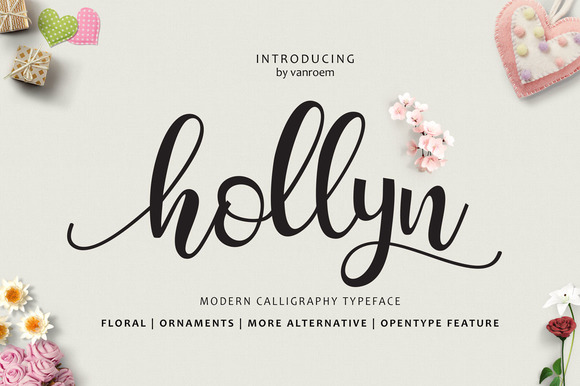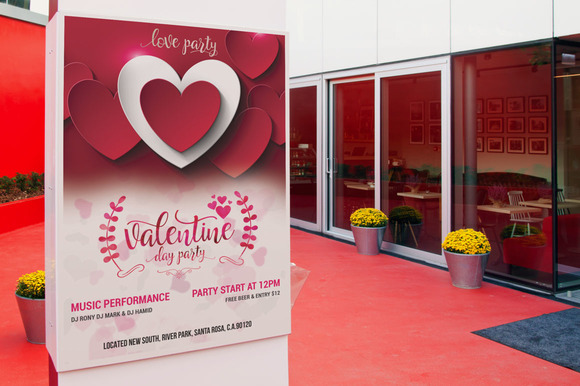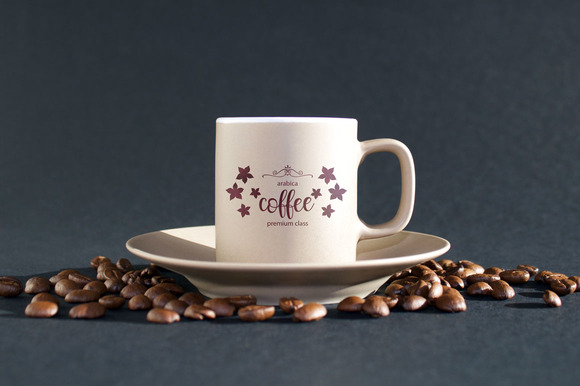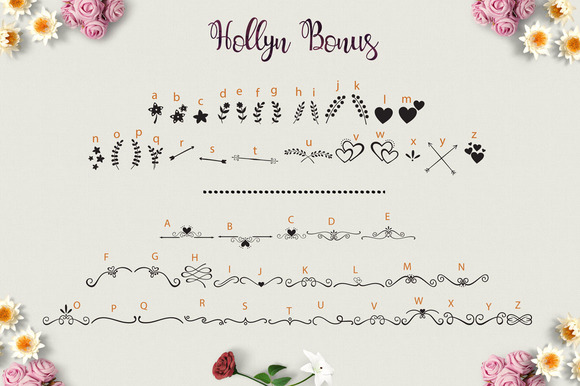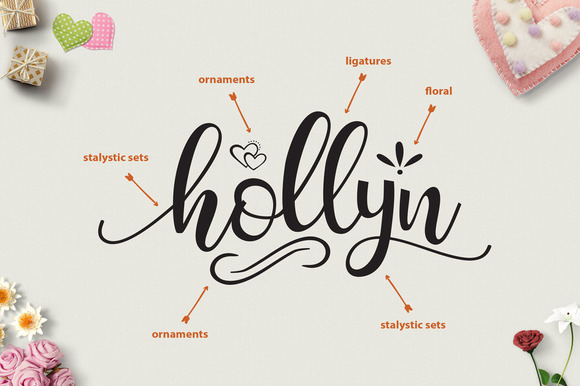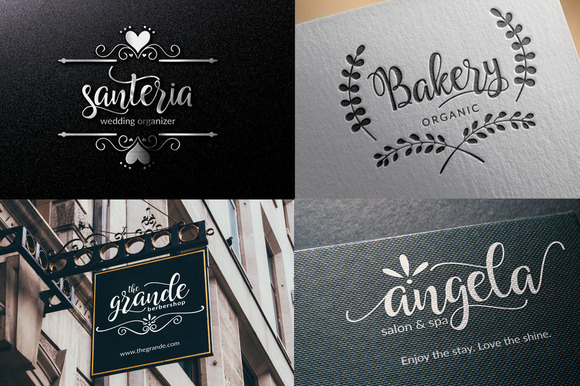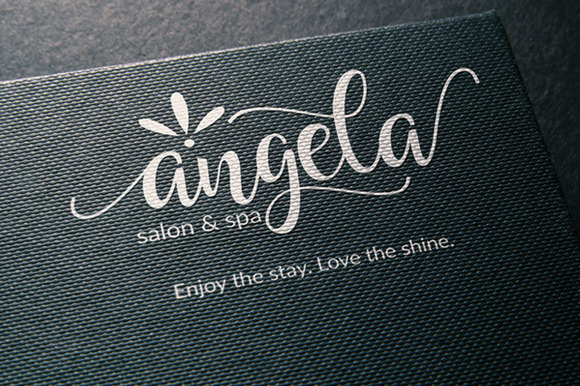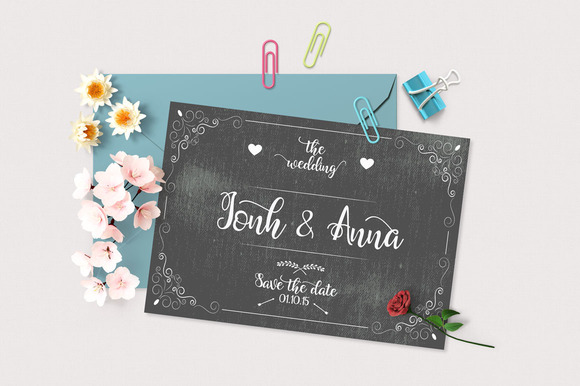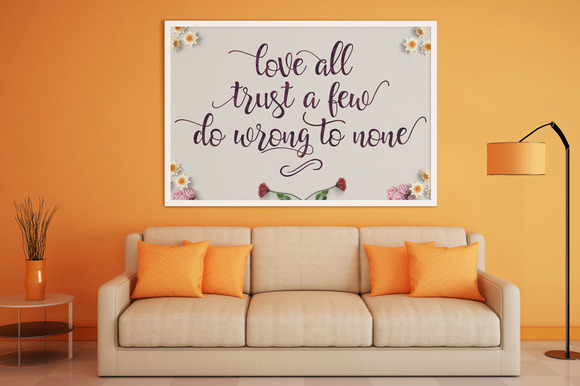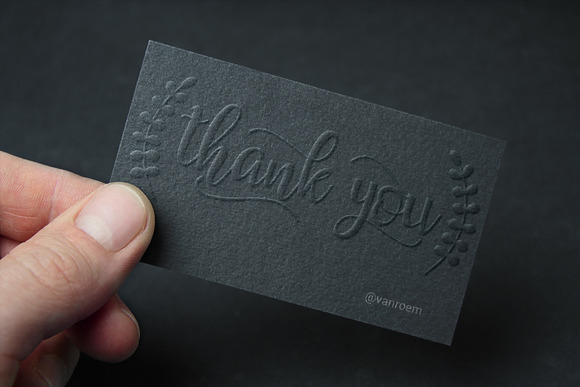
HomeScript FontsHollyn Font Script Fonts Hollyn Font FacebookXPinterestWhatsApp Hollyn Font Poster 2 Hollyn Font Poster 3 Hollyn Font Poster 4 Hollyn Font Poster 5 Hollyn Font Poster 6 Hollyn Font Poster 7 Hollyn Font Poster 8 Hollyn Font Poster 9 Hollyn Font Poster 10 Hollyn Font Poster 11 About Hollyn Font Hollyn is a beautiful handwritten font packed with beautiful alternates, swashes and swooshes! DOWNLOAD NOW People also explored Evelyn Font Peter Quincy Font Stickers Font Andi Font Septillion Font Taqela Font Raight House Font Father Font Losandra Font 286 0 TagsHollyn Font Previous articleLucita FontNext articleGladysta Font LEAVE A REPLY Cancel reply Comment: Please enter your comment! Name:* Please enter your name here Email:* You have entered an incorrect email address! Please enter your email address here Website: Save my name, email, and website in this browser for the next time I comment. Personal Use Free Almonte Personal Use Free Read more about this font Sushi Day Personal Use Free Read more about this font Crellia Script Personal Use Free Read more about this font The Kingdom Personal Use Free Read more about this font BLOG Elegant Wedding Invitation Fonts – Handwritten & Script Fonts Elegant Wedding Invitation Fonts Your wedding day is one of the most important moments of your life, and every detail matters—including your invitation design. Our... Top 10 Handwritten Fonts That Elevate Your Designs Best Fonts for T-Shirt Design – Top 2025 Picks Top 7 Google Fonts Alternatives for Faster and Privacy-Friendly Web Design (2025)